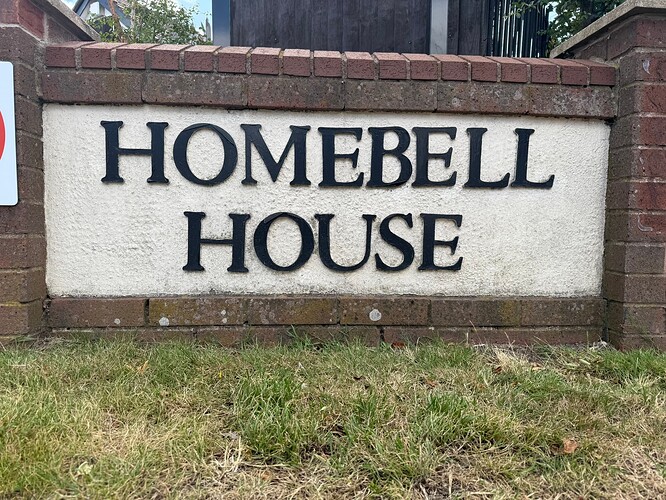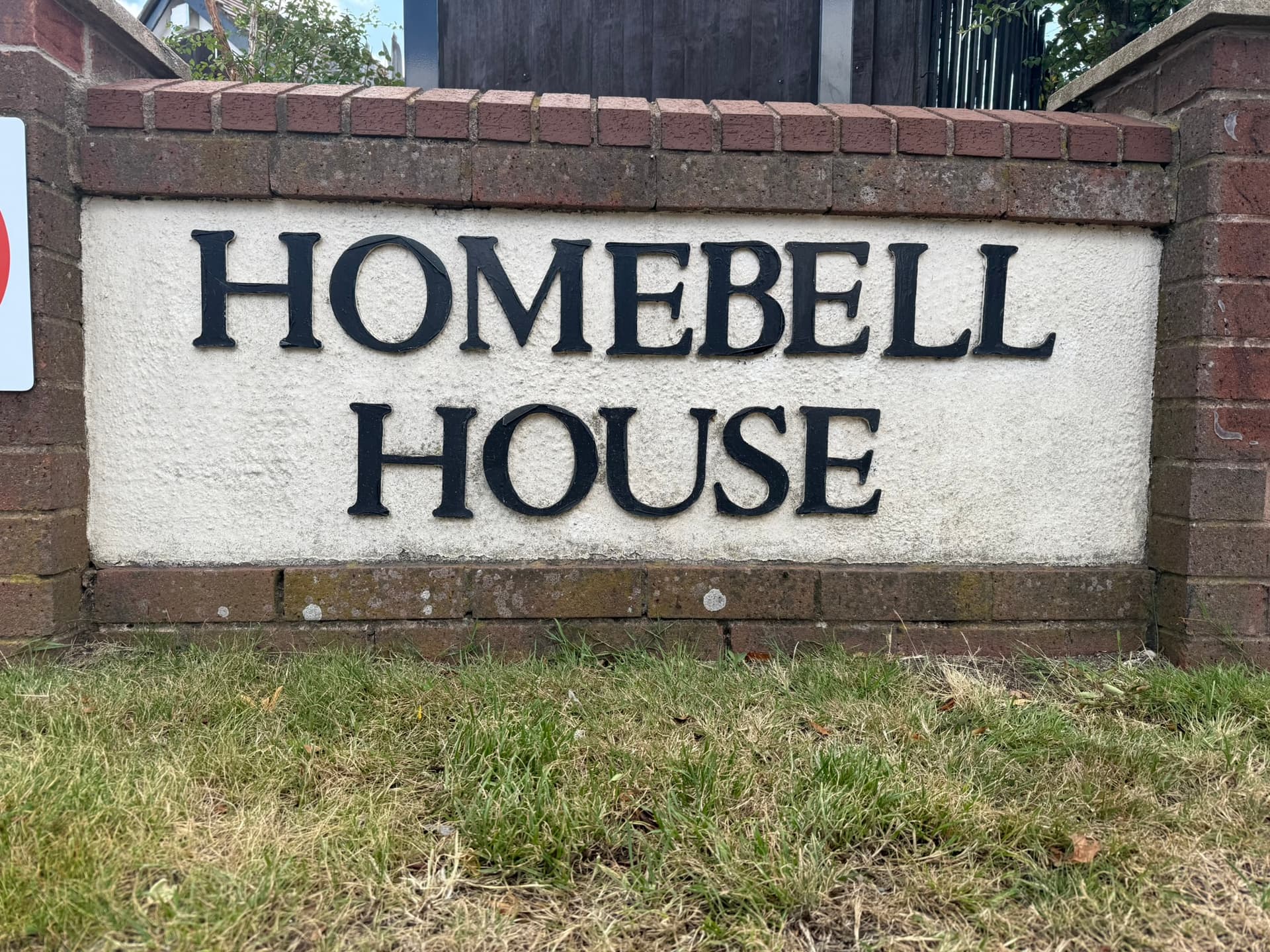
I am wondering if anyone can help ide3ntify this font, it is similar to Times New Roman but it is more rounded and the middle part of the 'E; is at an angle.
May be this one